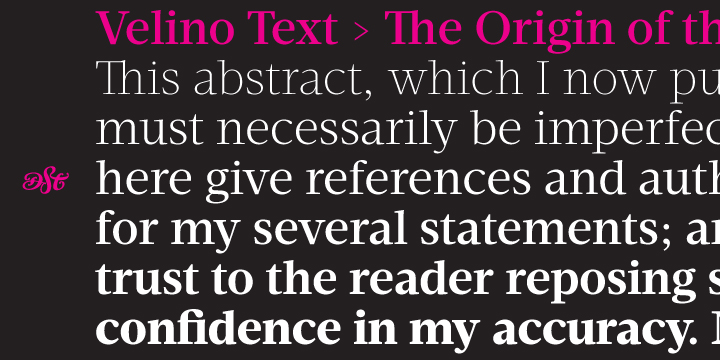
Velino Text is a typeface created by Dino dos Santos and published by DSType. You’ll find two package with three widths and is perfect for every type of text, even newspaper printing. Have fun!
Foundry: DSType
Released: 2008, 2010